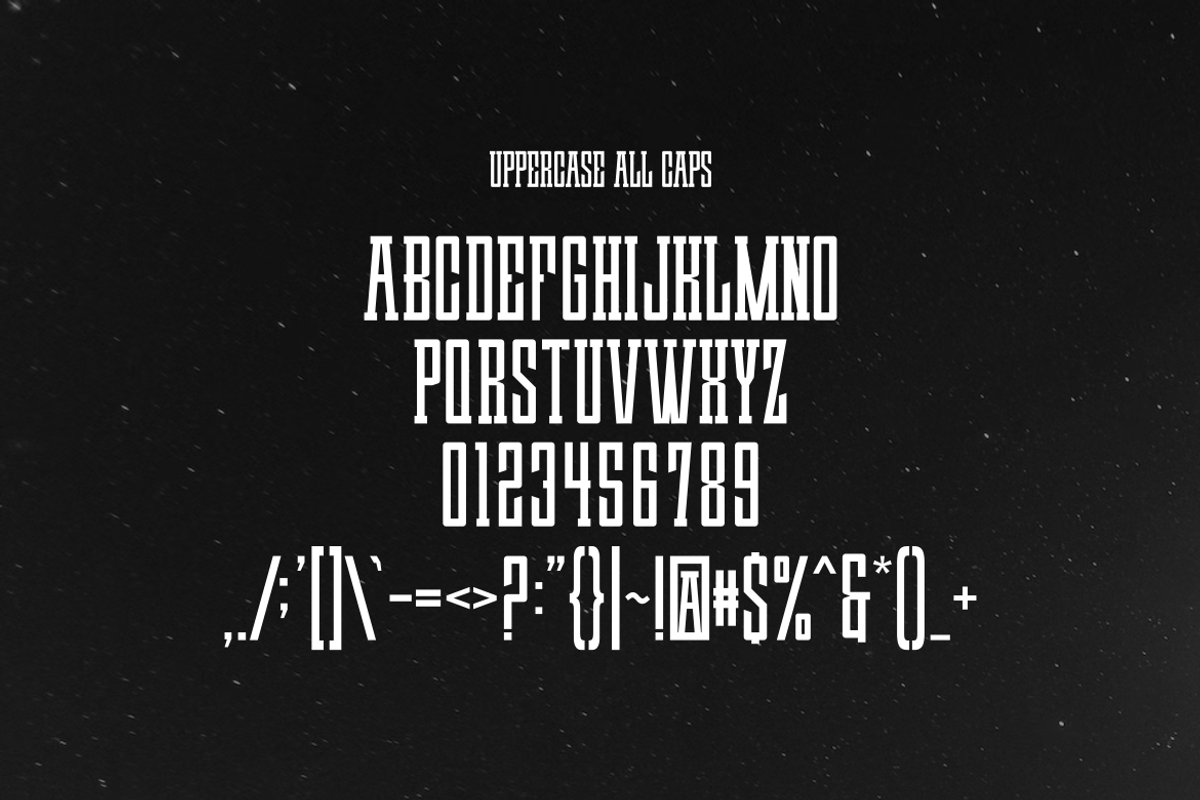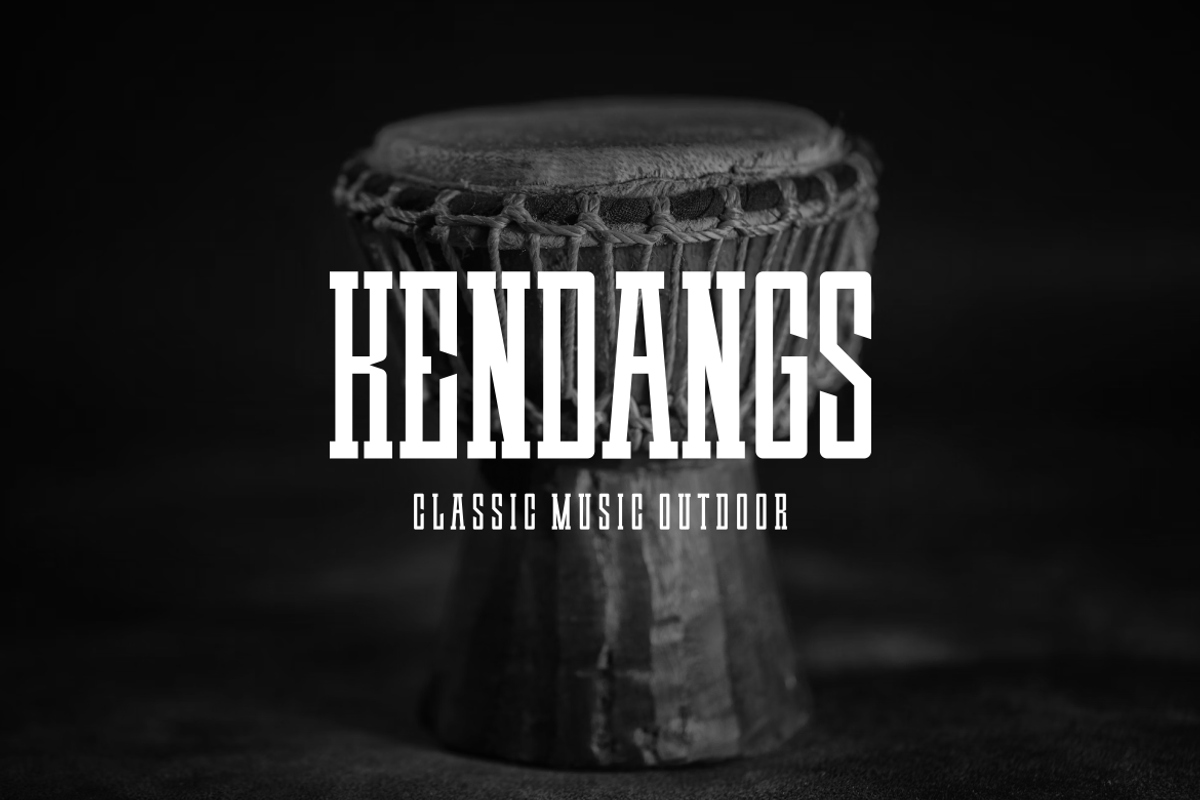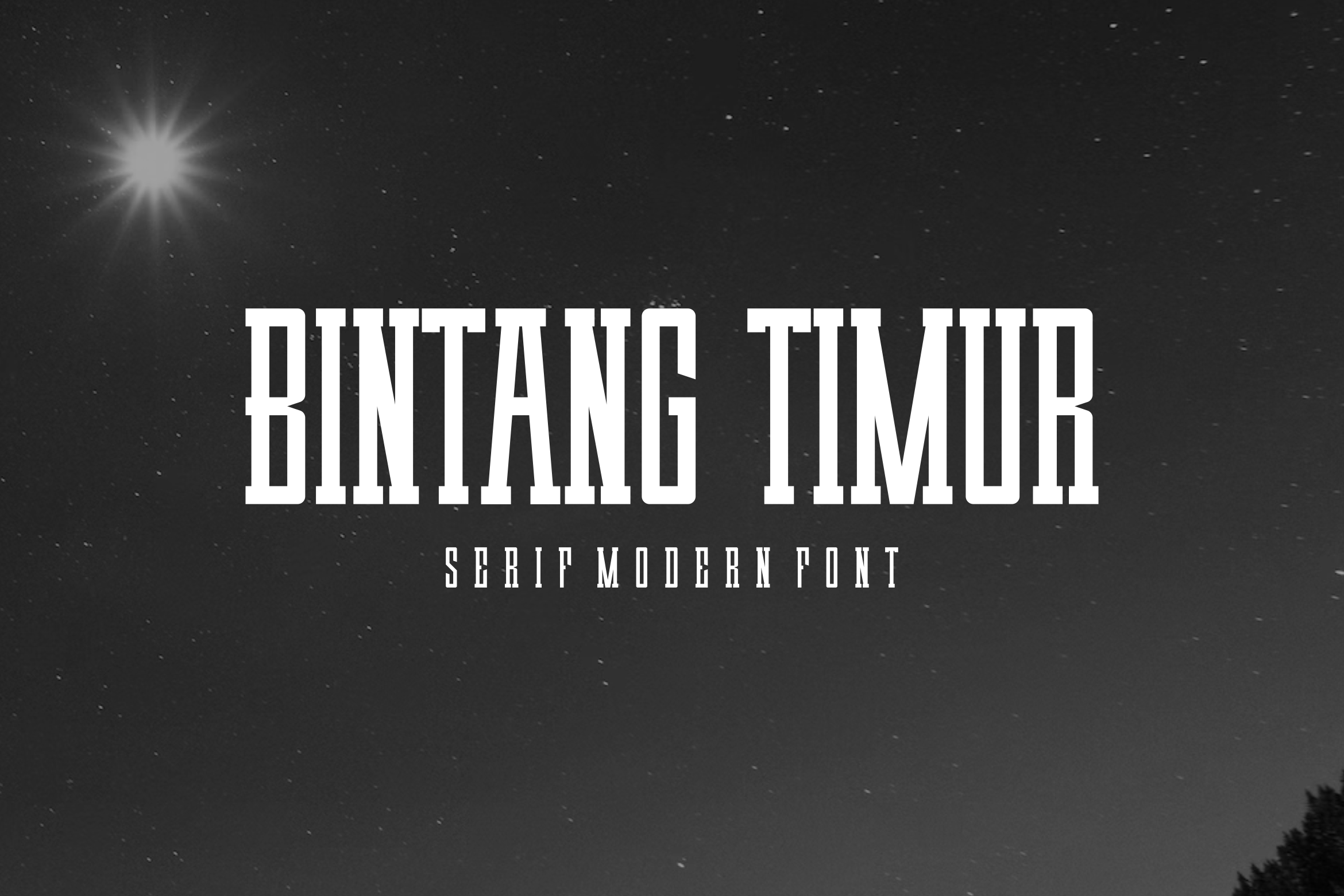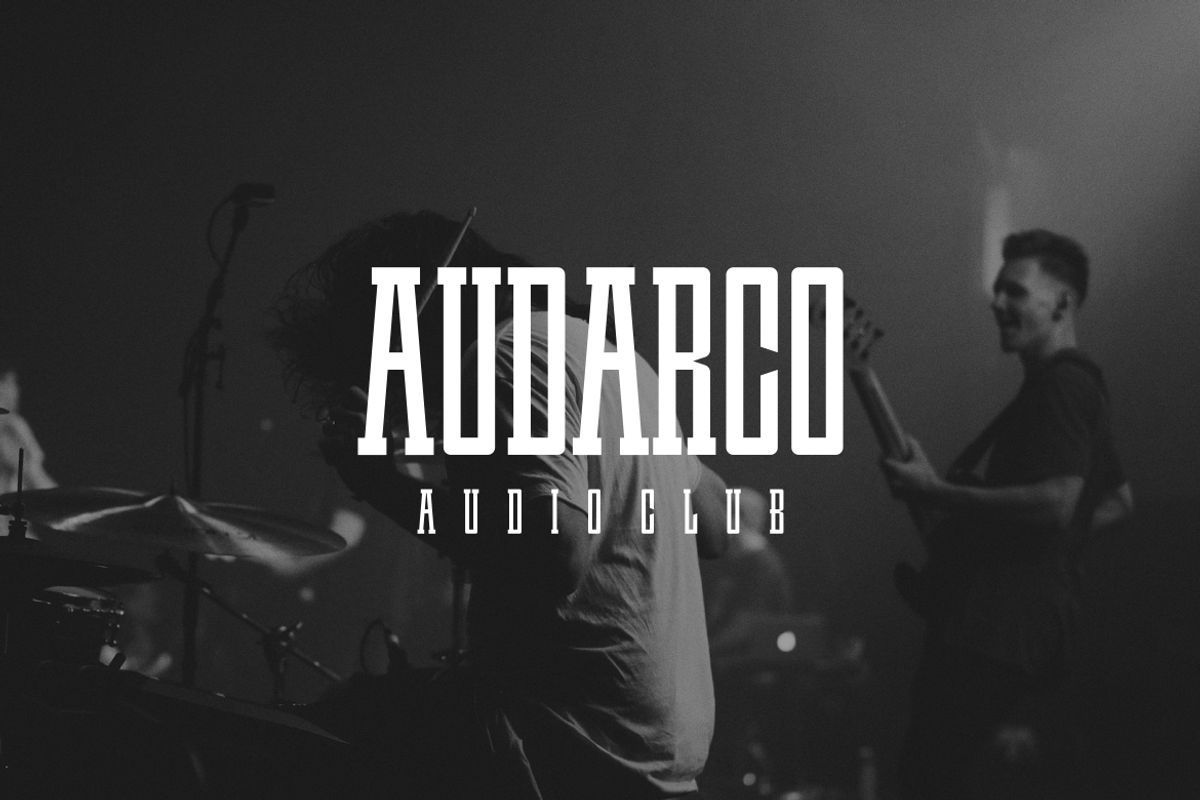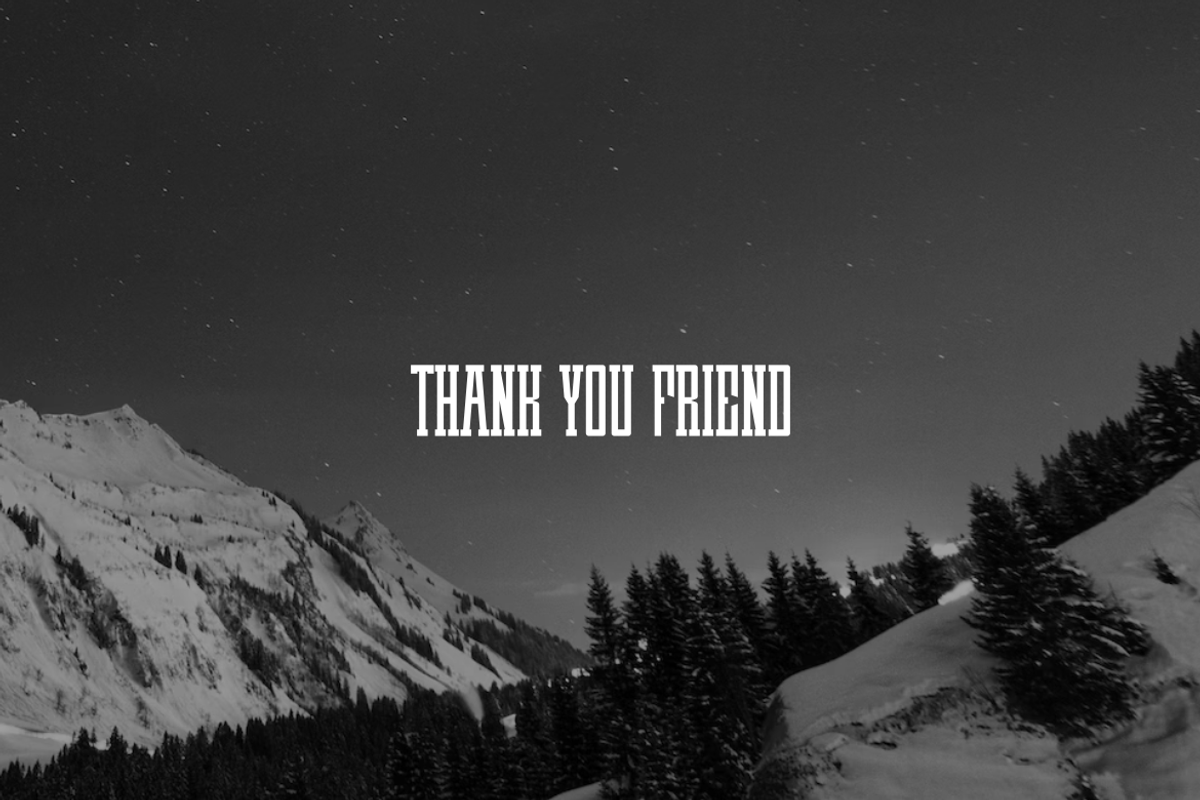
Bintang Timur Font
Introducing our new product Bintang Timur Font - Modern Font
Bintang Timur Font - Modern Font is a bold and authentic display font. The font is suitable for any branding project like logo, esport, and many more. outstanding in a wide range of contexts.